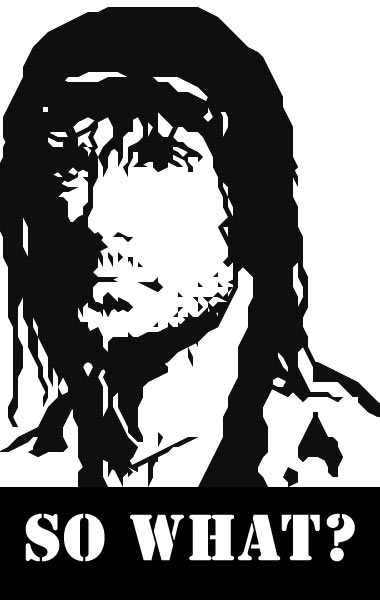
EPIIIC!! You're probably going to win, actually. If not win, then at least as one of the runner-ups. This is excellent. You're such an artist.
I don't care if you traced this, it still is absolutely excellent.
11.99999/10
Fantastic! This is one of my favorites.
Great work!!! (like one I've FStructing now... well a little bit late). I've seen Harrison Ford and Arnold Scharzenegger and Bud Spencer making films here in Almeria (when I was young)!
In lighter news: This font sure is legendary in itself. 10/10
Wow.
HOLY BALLS!!!!! and balls can't be holy unless they are God's
it's too beautiful :O
Excellent work. So much detail within 48 bricks height. My favorite is Conan / Schwarzenegger. 10/10
Congratulations! FontStruct Staff have deemed your FontStruction worthy of special mention. “legendary” is now a Top Pick.
IMPRESSIONNANT !
Where's Chuck Norris?
your an artist
Great !
And if we overwrite the characters, do we get new ones ? LOL
I would love to give you my thoughts on this but my brain just kinda exploded so I'll have to fix it first...
That is impessive!
Sadly, it is the FontStruct font with the least glyphs. :-(. But I give it a 10/10 for good work!
It has a total of 10 glyphs. :-(
@CaillouFanJoseph this was for a competition of illustrations. We showcase artistic ability, new stacks and composites, testing limits. Please do publish your work and show how you made the images you think the original is lacking ;)
What is this font magic?!?!?